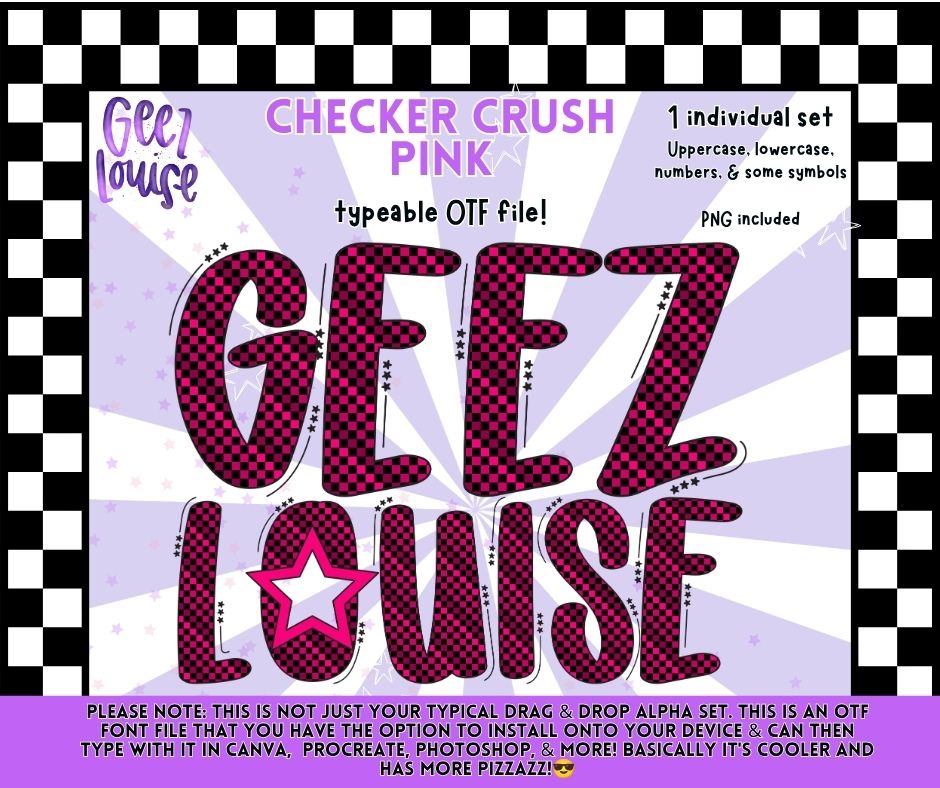
Checker Crush Pink Alpha Font OTF | Pink Checker Alphabet PNG | Typeable Font | Girly Font
🩷🖤 Add a bold pop of pink to your next project with Checker Crush Pink Alpha! This fun, vibrant typeable font features a hot pink and black checker pattern that's perfect for girly graphics, boutique apparel, coquette-inspired designs, sports, and so much more.